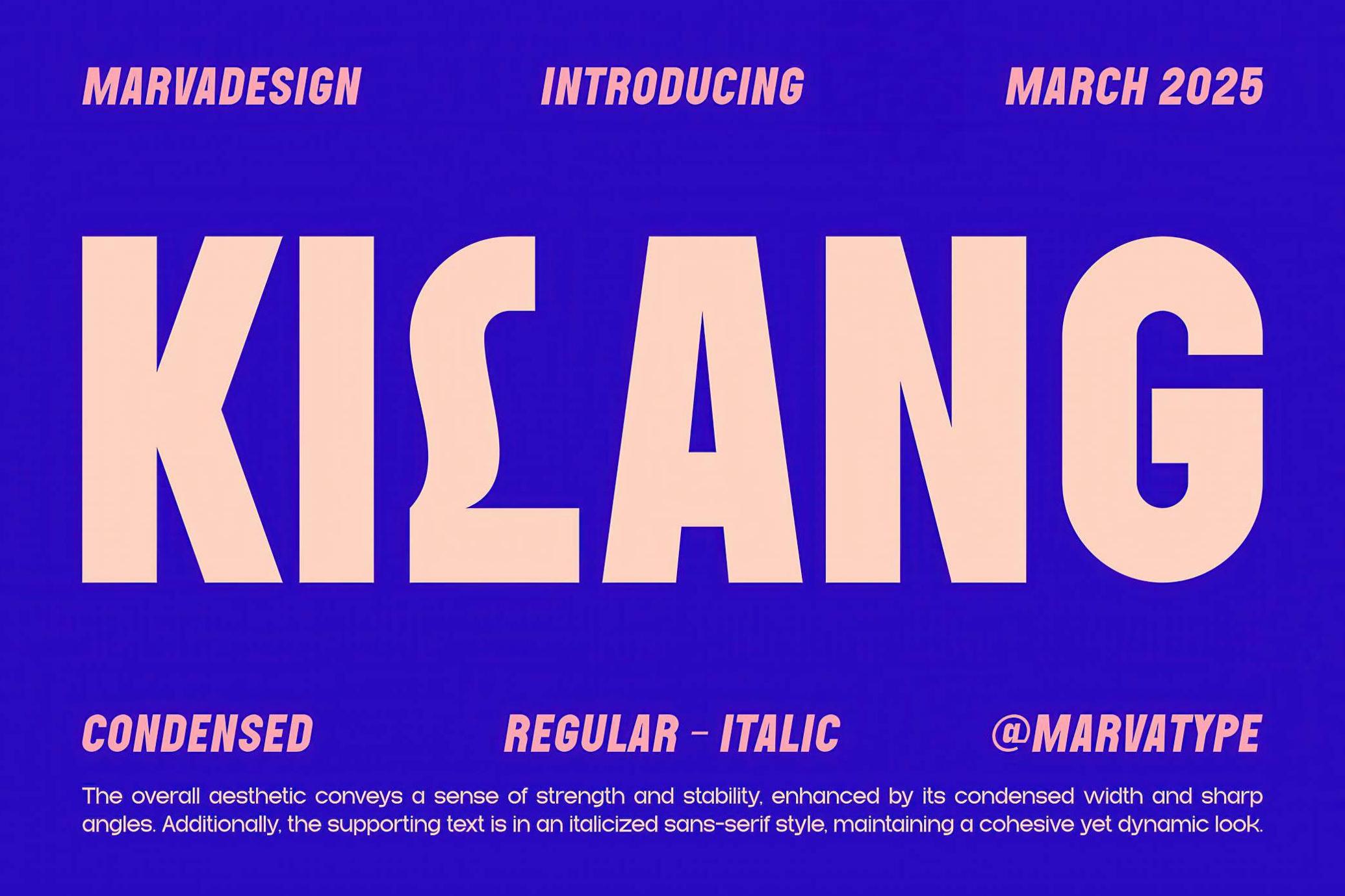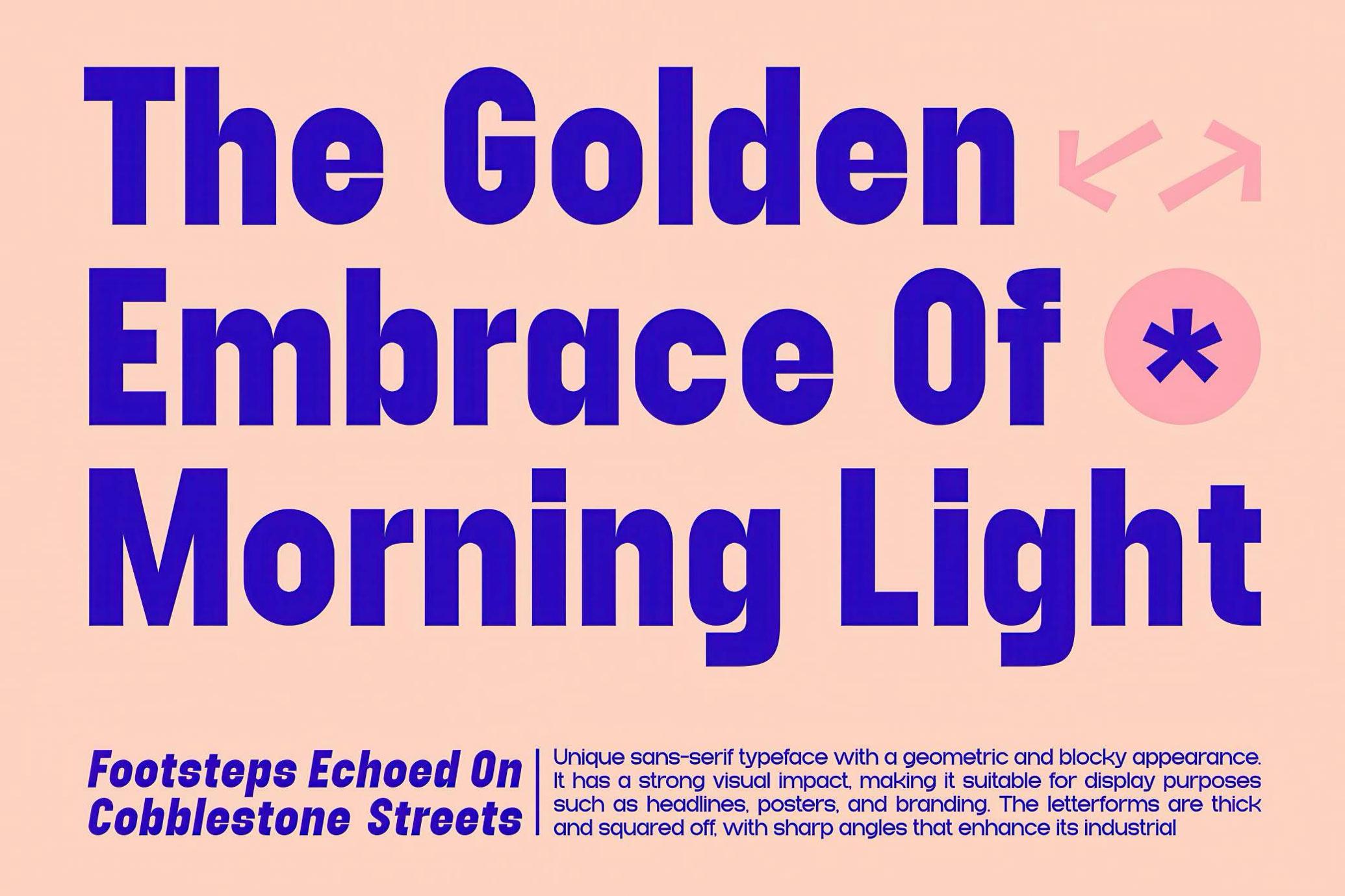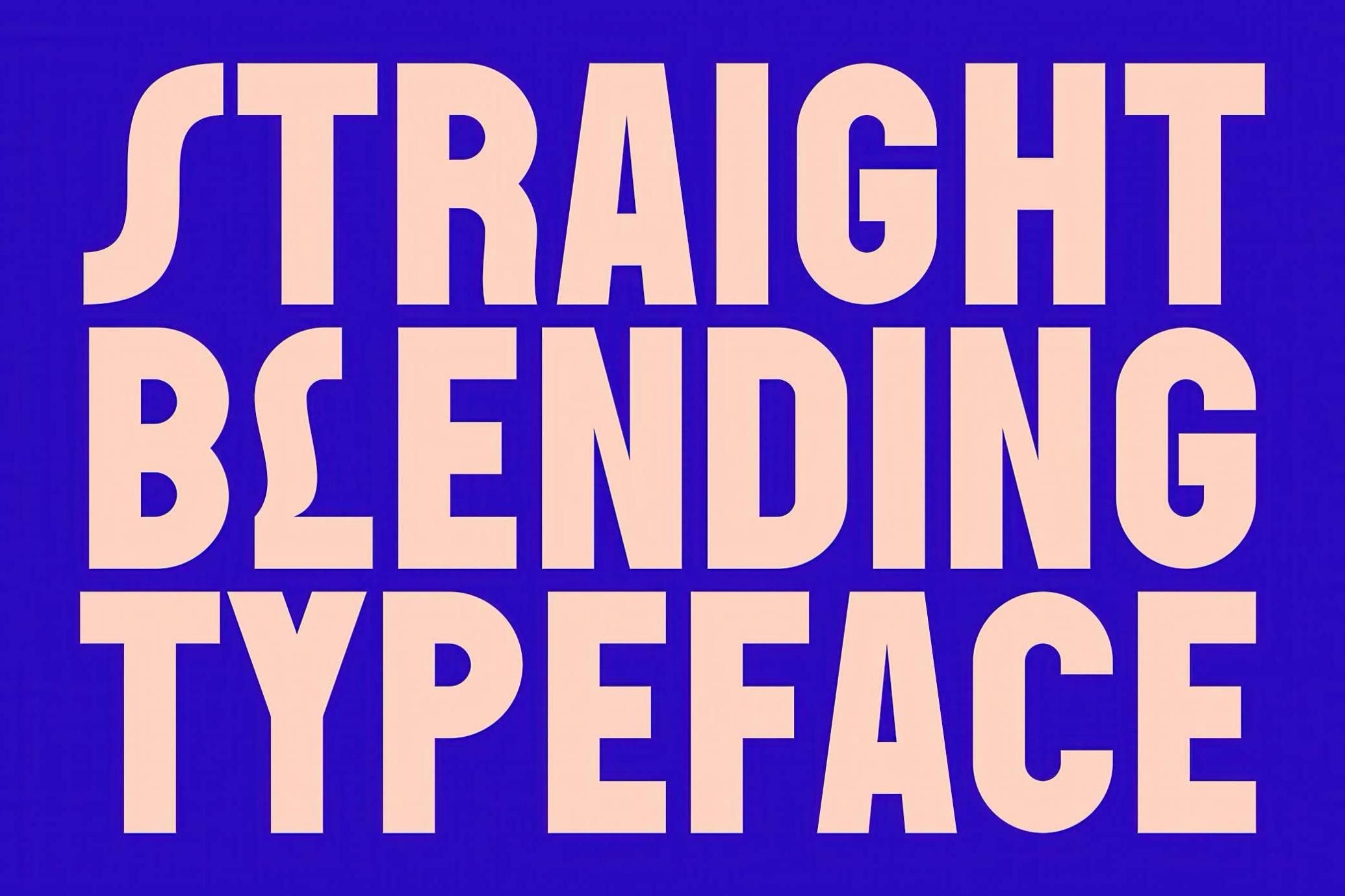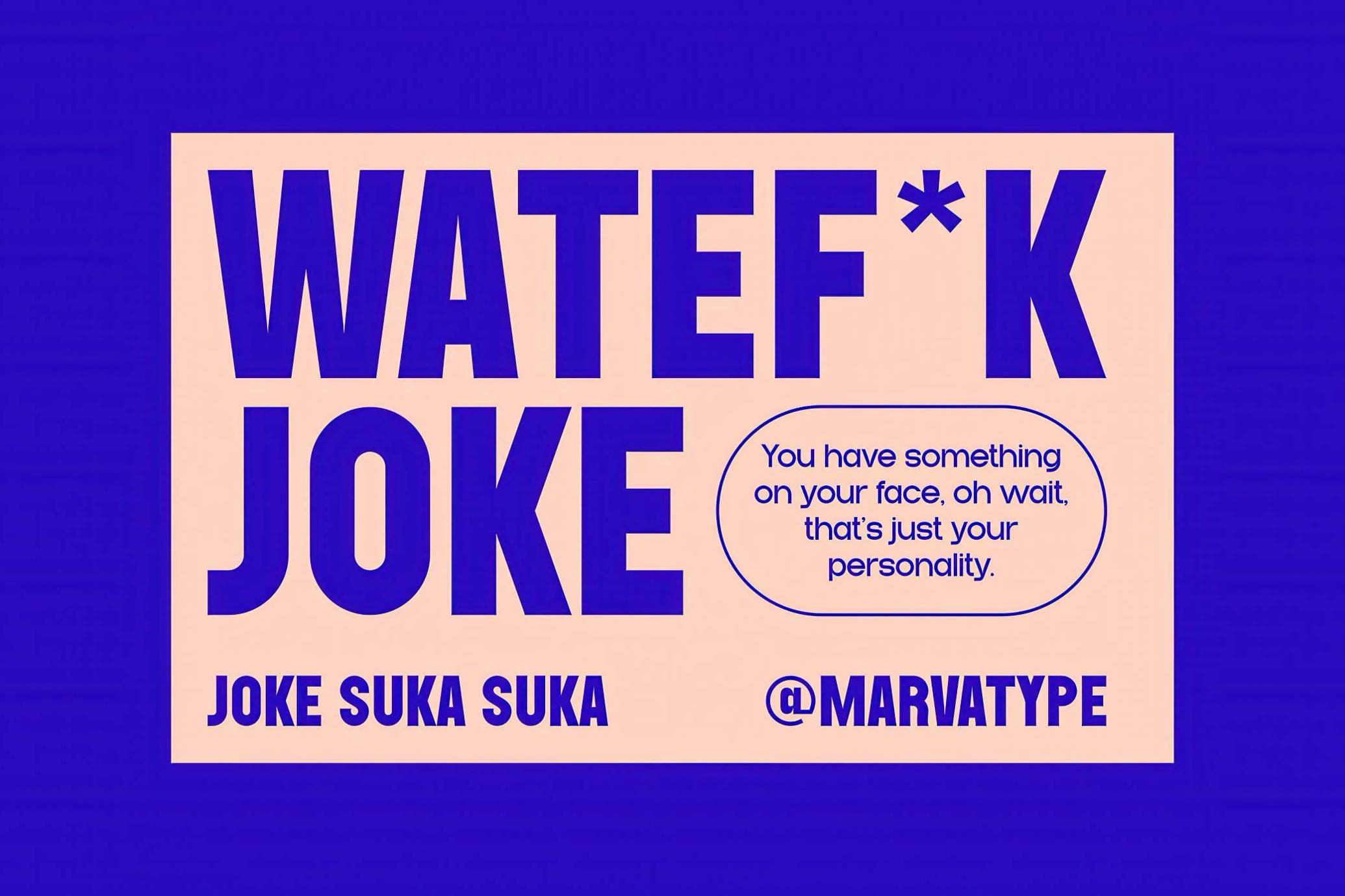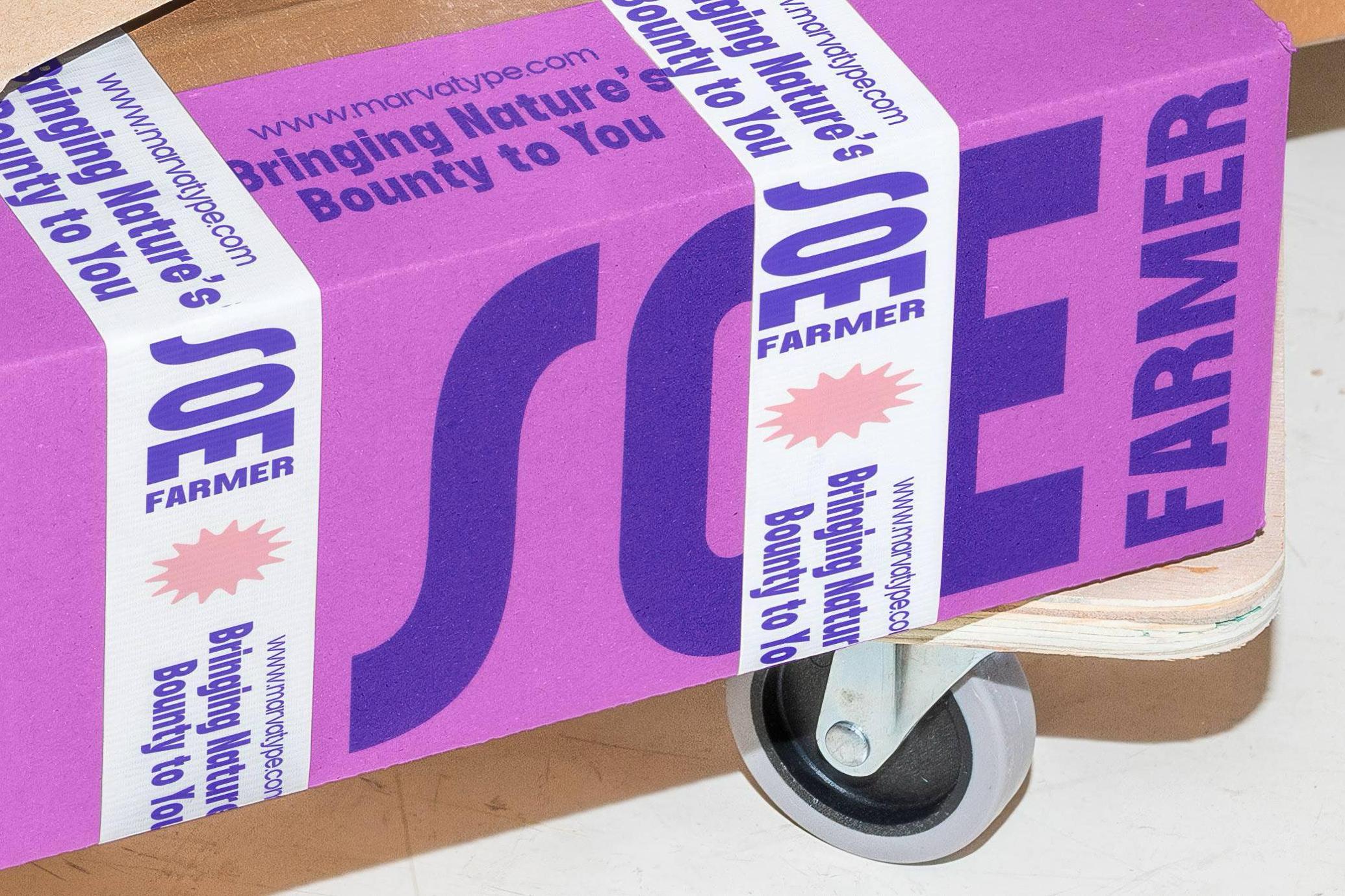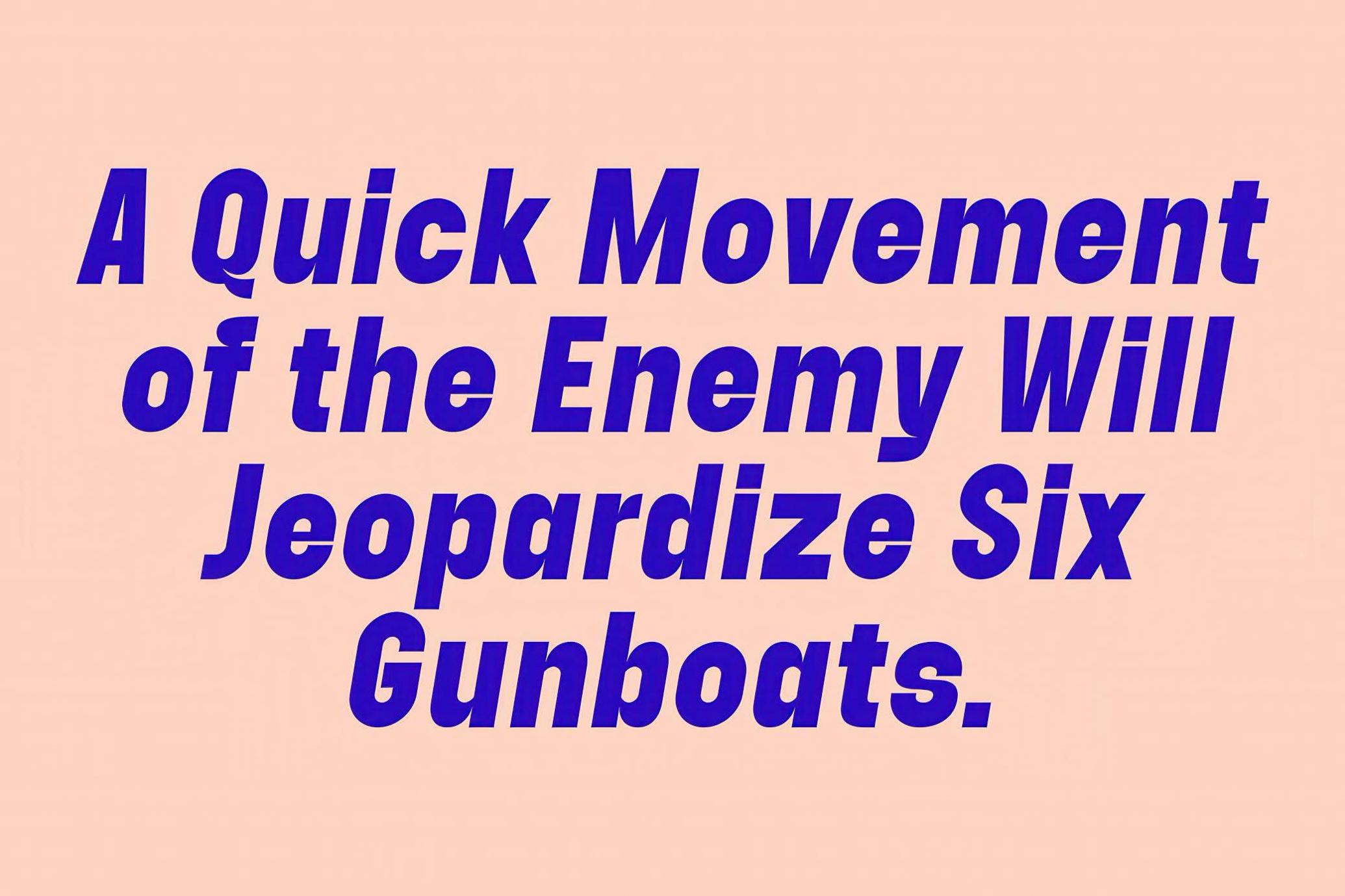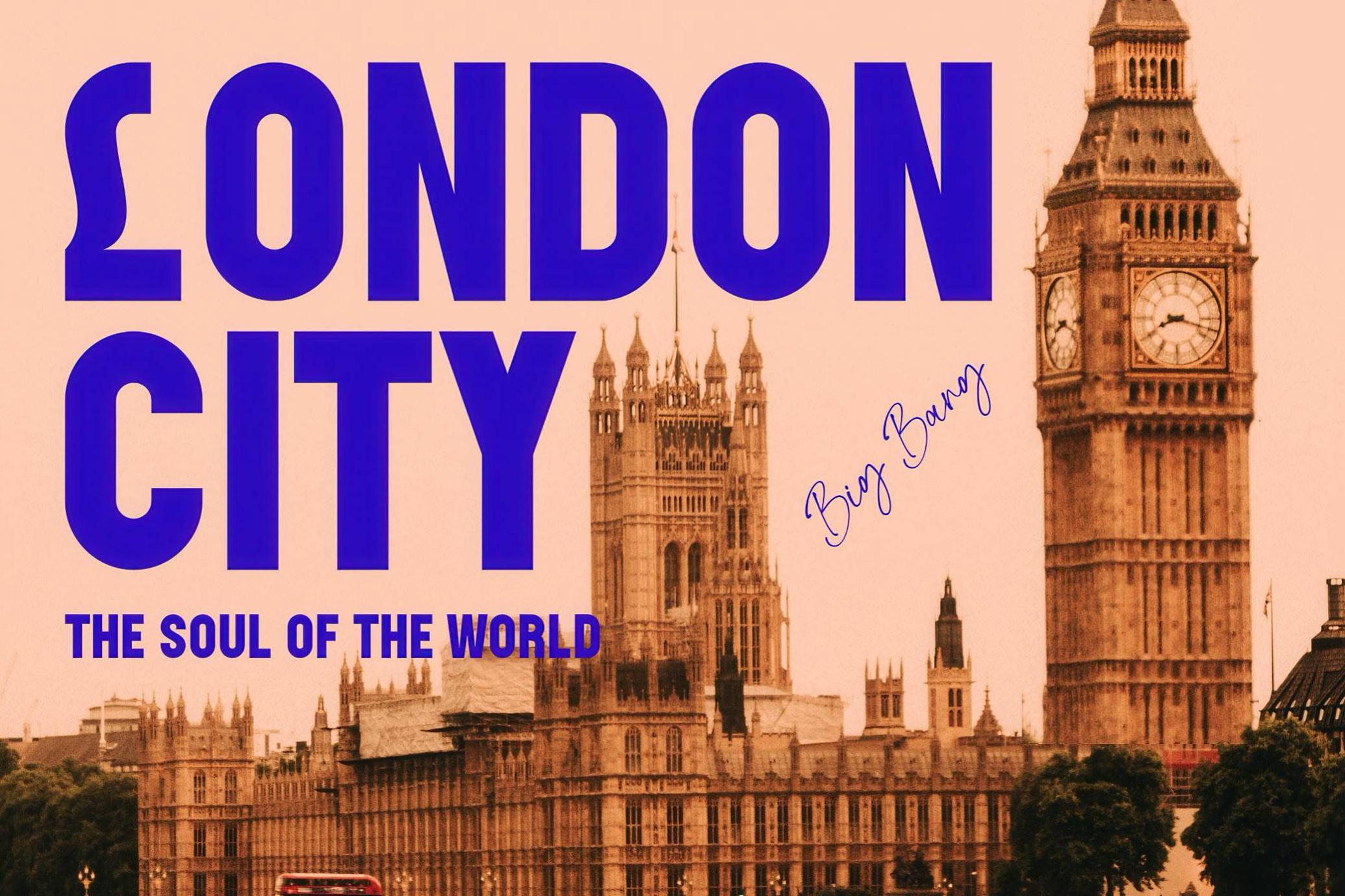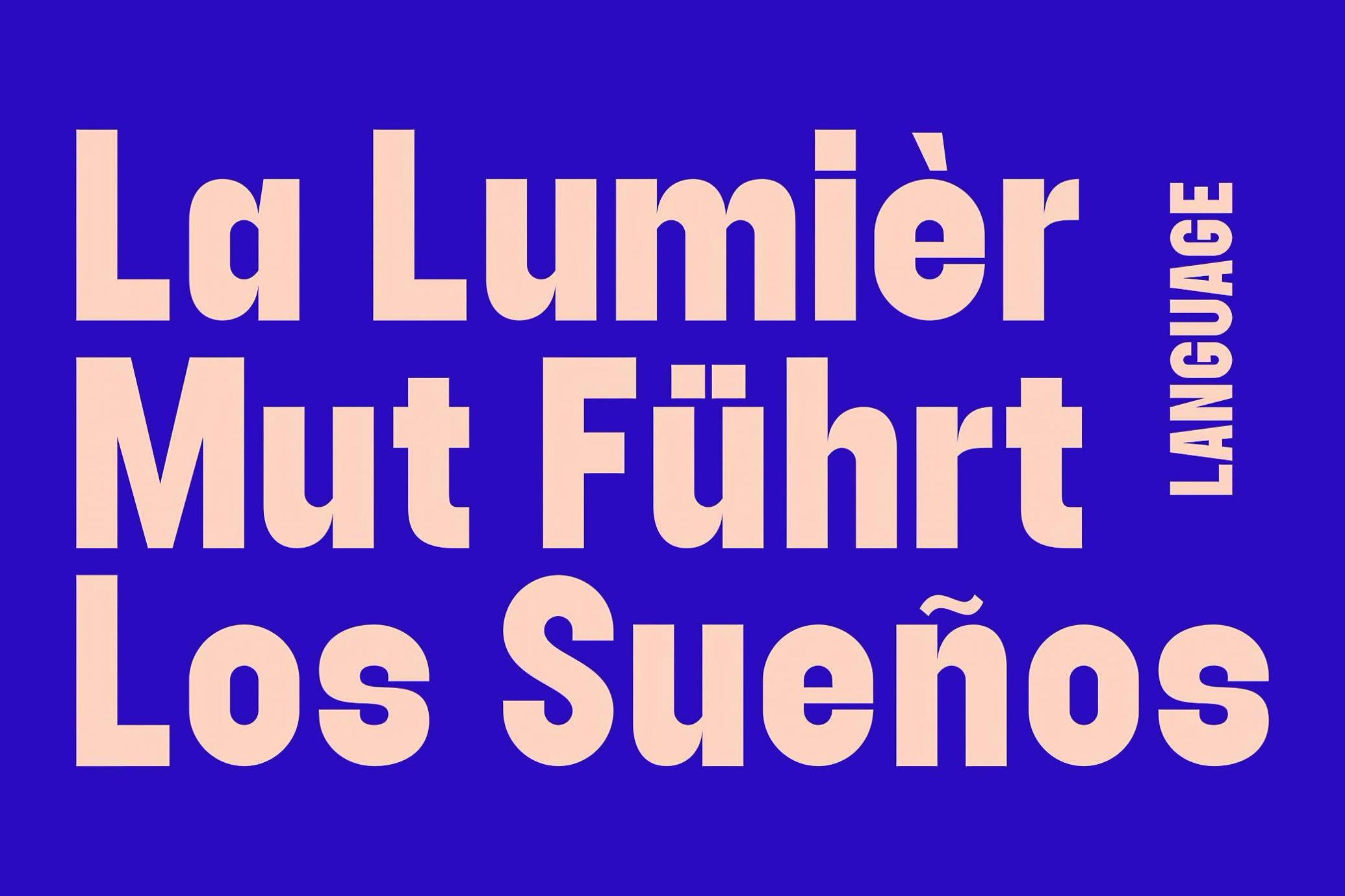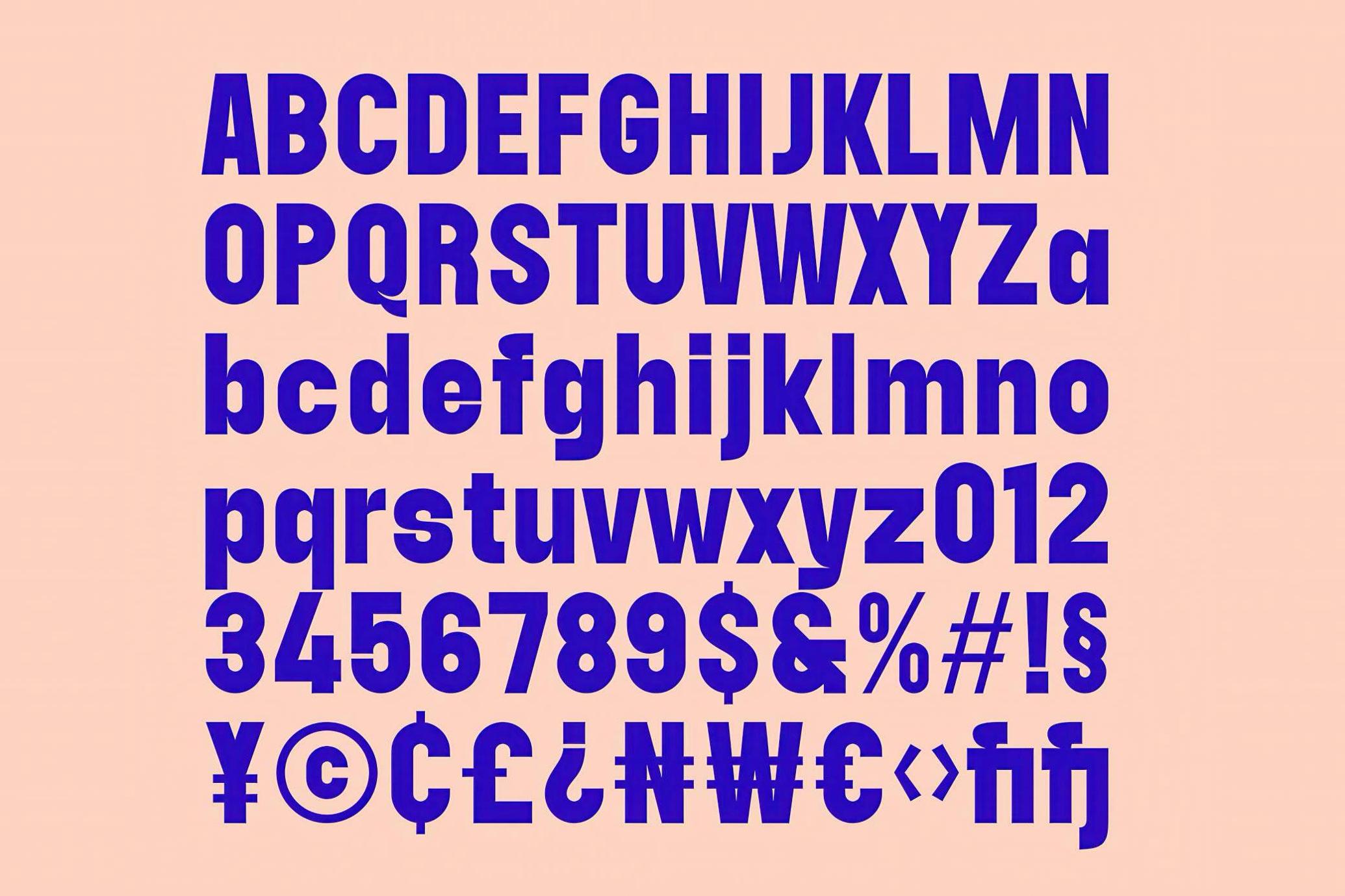
Kilang — Condensed Sans Serif
Forget subtle, Kilang blasts through your grid with sharp corners and brute geometry. Inspired by industrial signage and the attitude of big-city noise, this condensed sans-serif is built to dominate headlines, posters, and loud branding statements. With uppercase, lowercase, multilingual support, ligatures, alternates, and both regular and italic styles, it gives you a clean, cohesive system that still packs a punch. The italic cut leans just enough to add motion without losing its heavy stance — think sports branding, music artwork, packaging, tech campaigns, or anything that needs to move fast and hit hard.